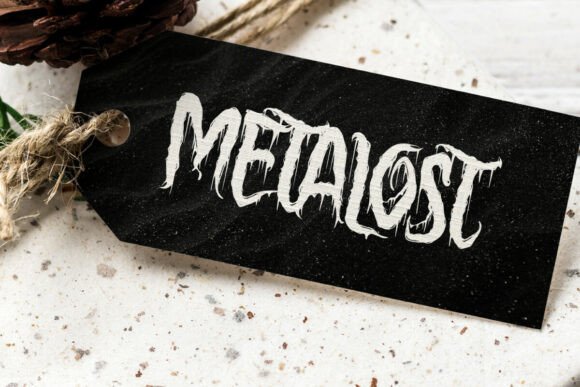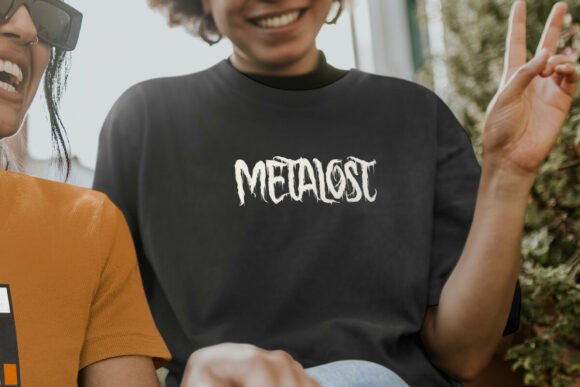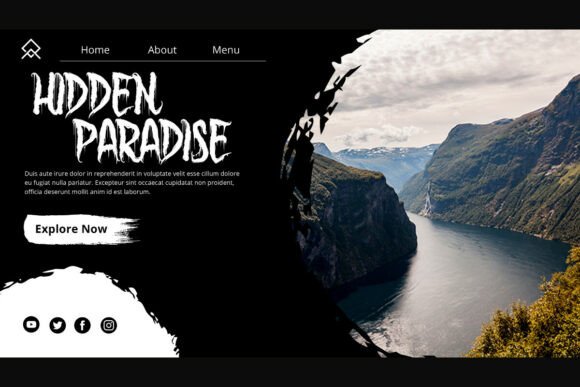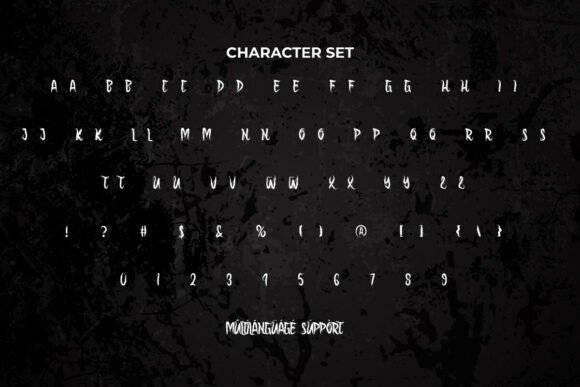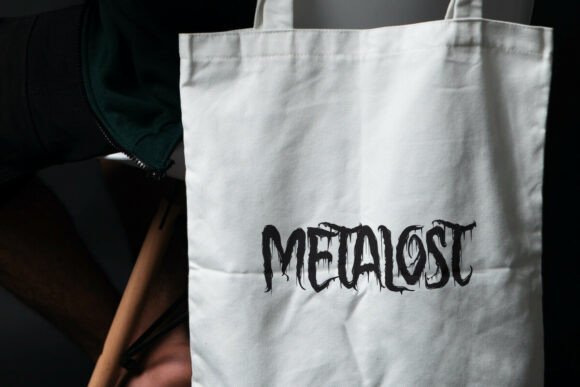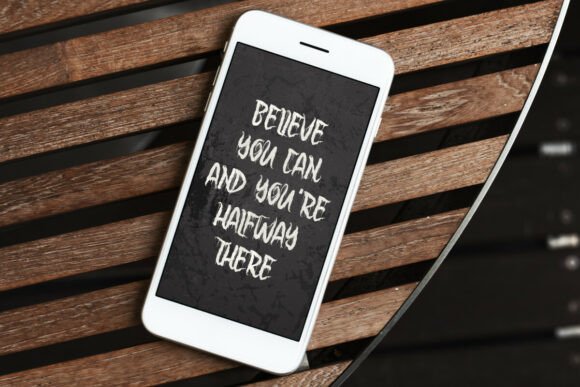
Introduction to Metalost Font
Metalost is a grunge scary blackletter font with a unique look.
This font is made with a black metal concept to support the appearance of your design to be very cool It will be perfect for any designs, such as brand image, cover, custom design, invitation, label, marketing material, menu, poster, product packaging, quote, signage, stationery, web, and many more.
Metalost Font offers exceptional quality and versatility, making it a valuable addition to your design toolkit. Whether you’re creating for personal projects or commercial use, Metalost Font delivers professional results.